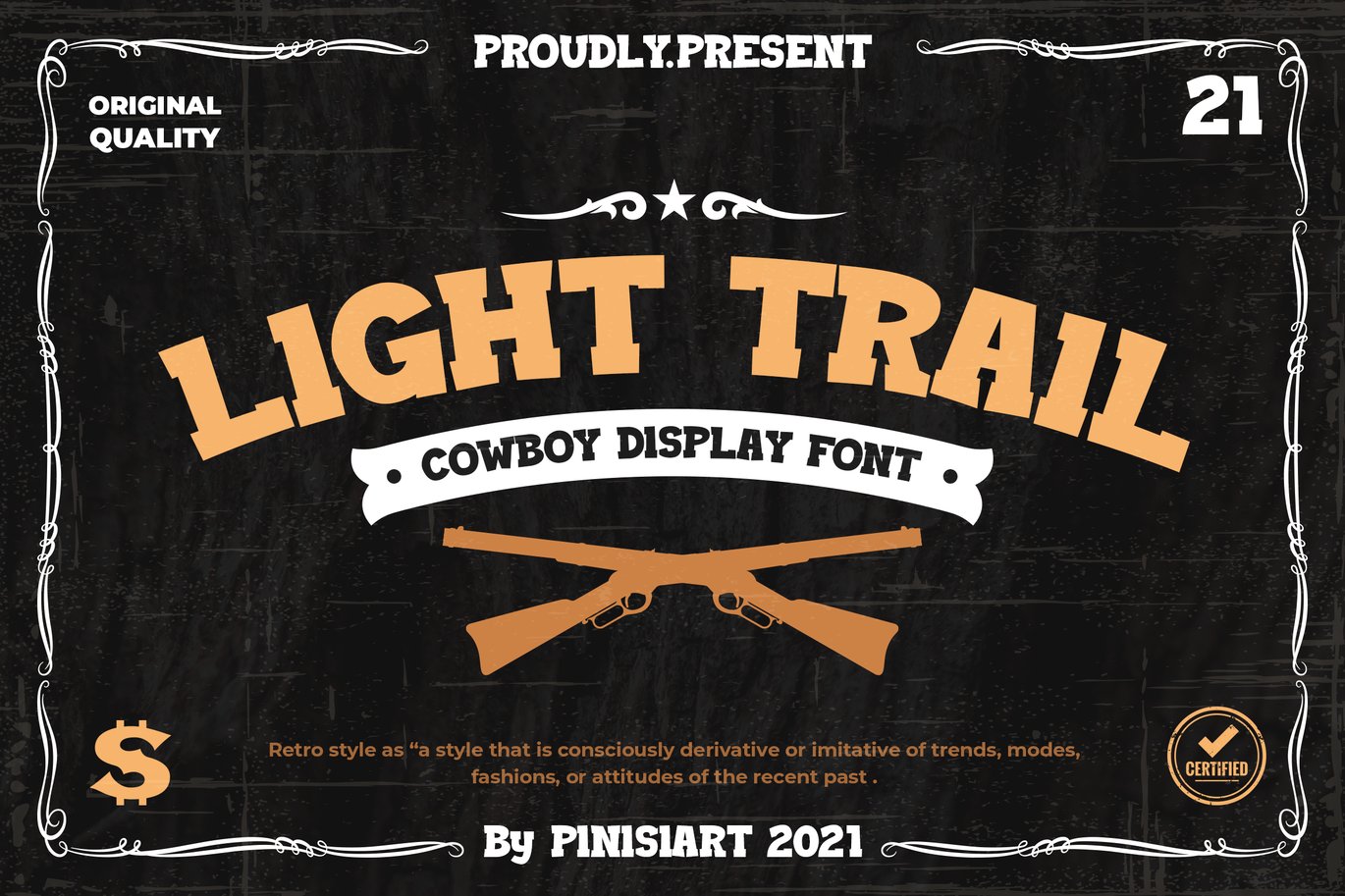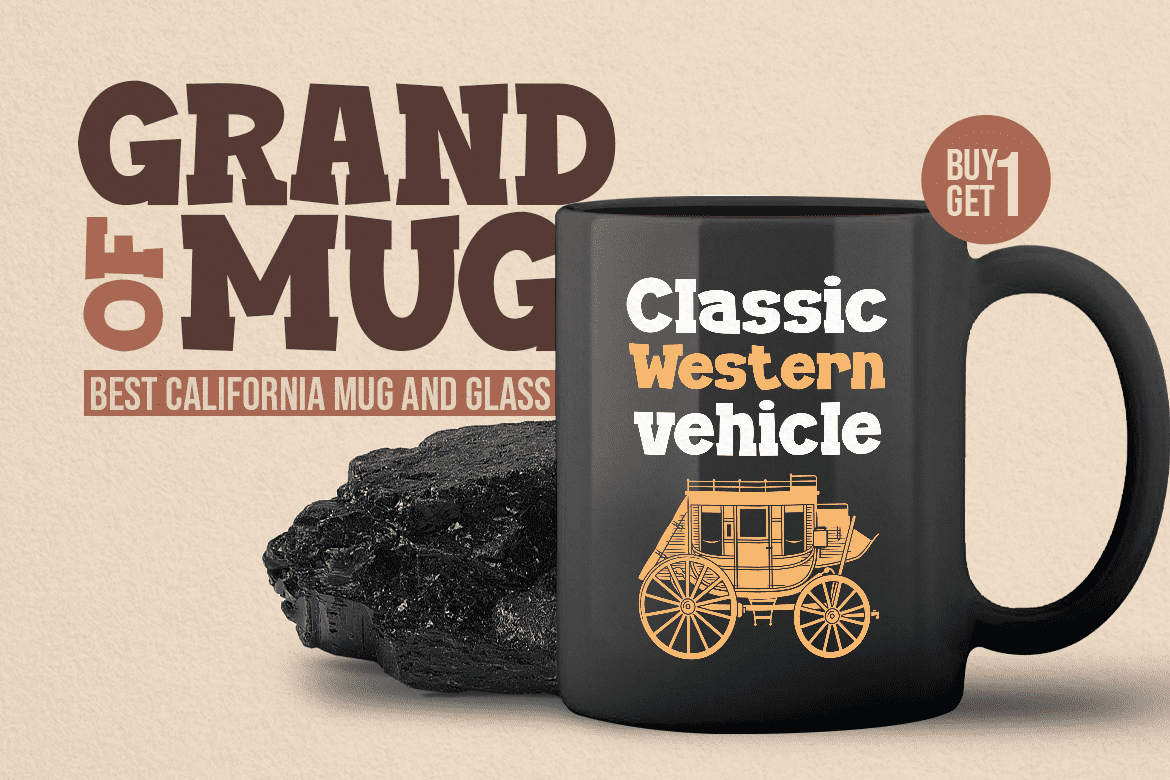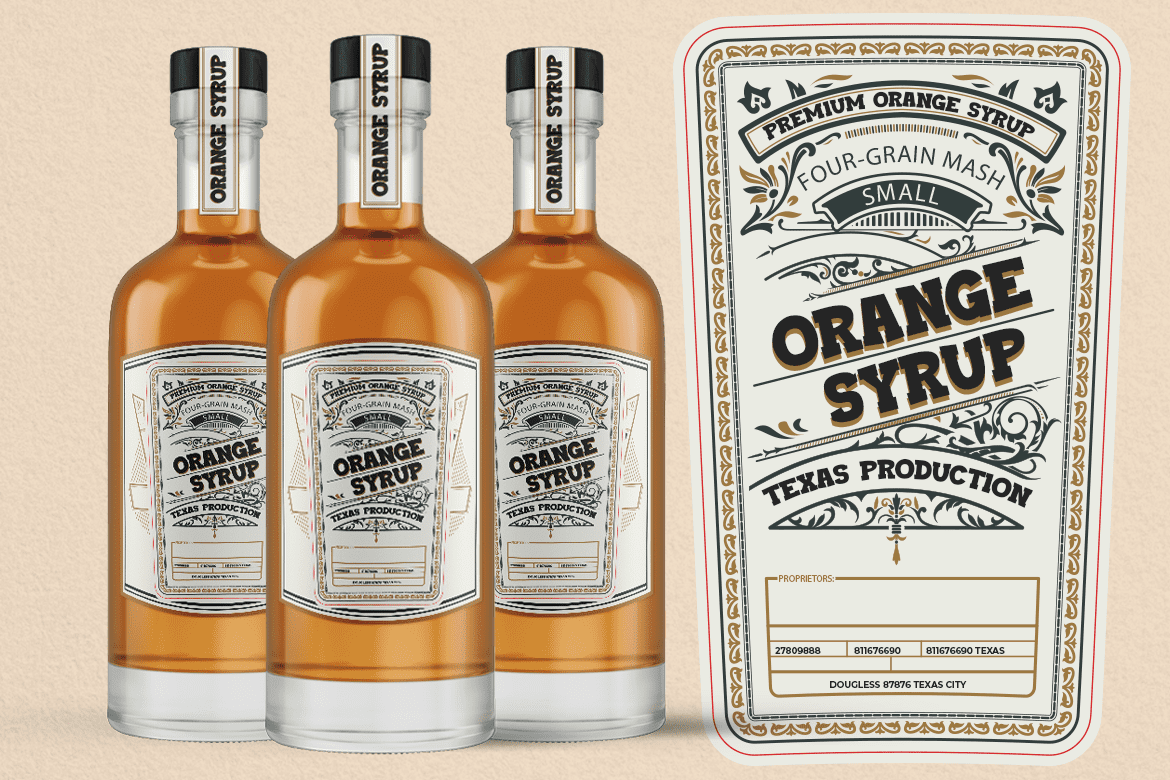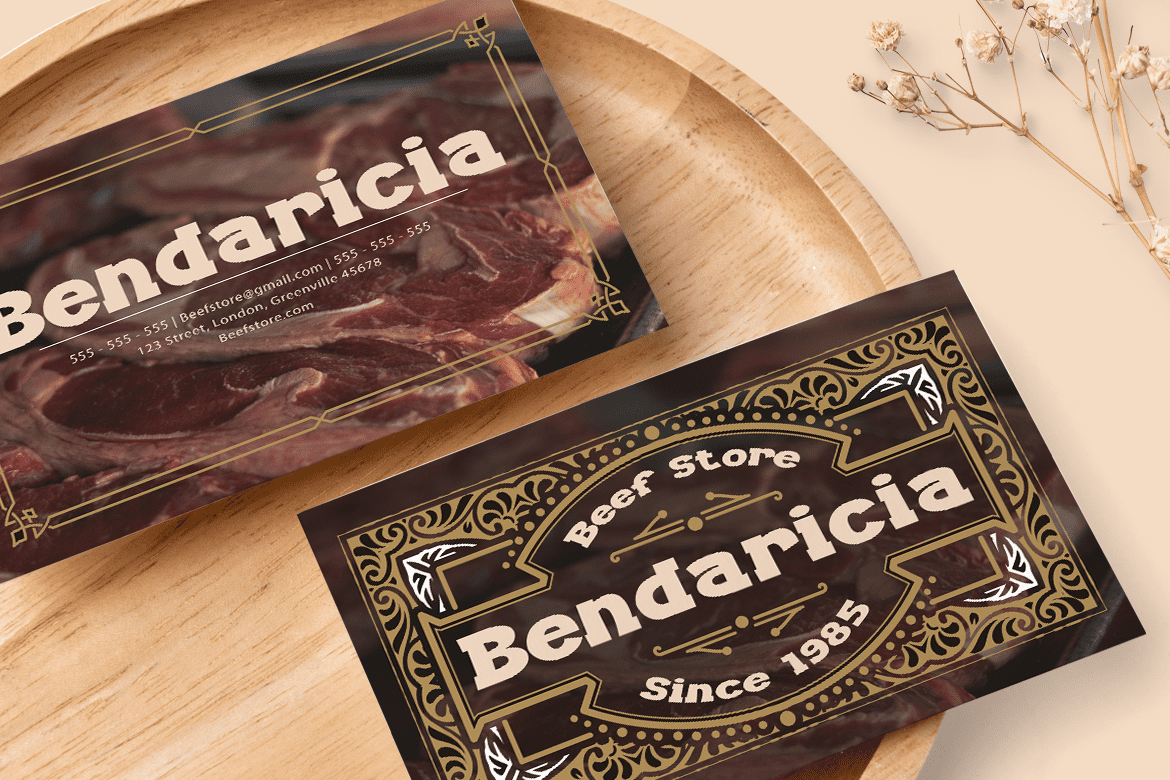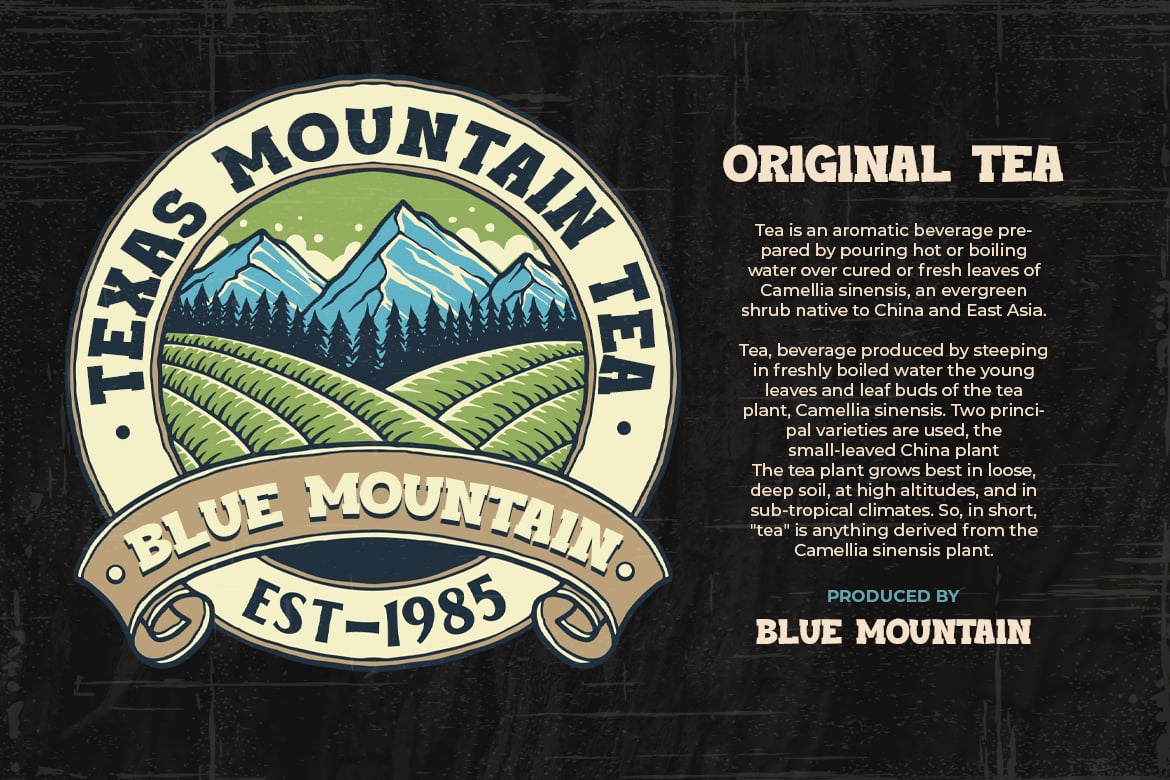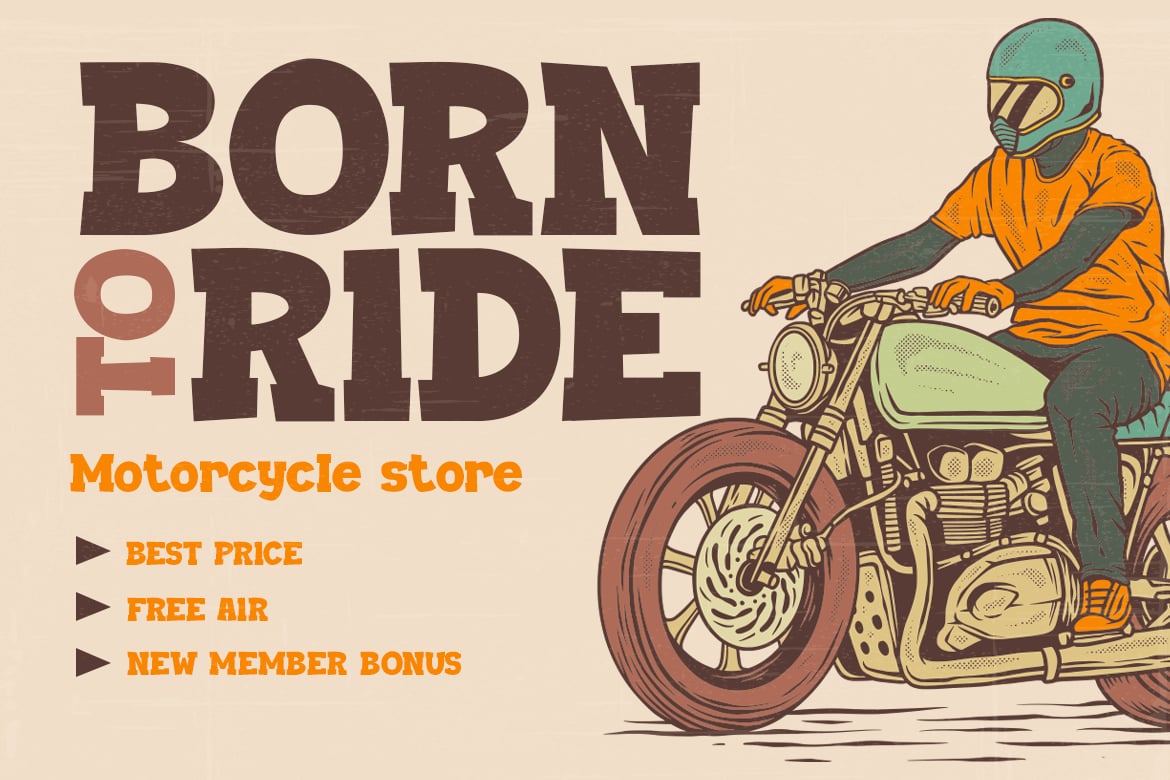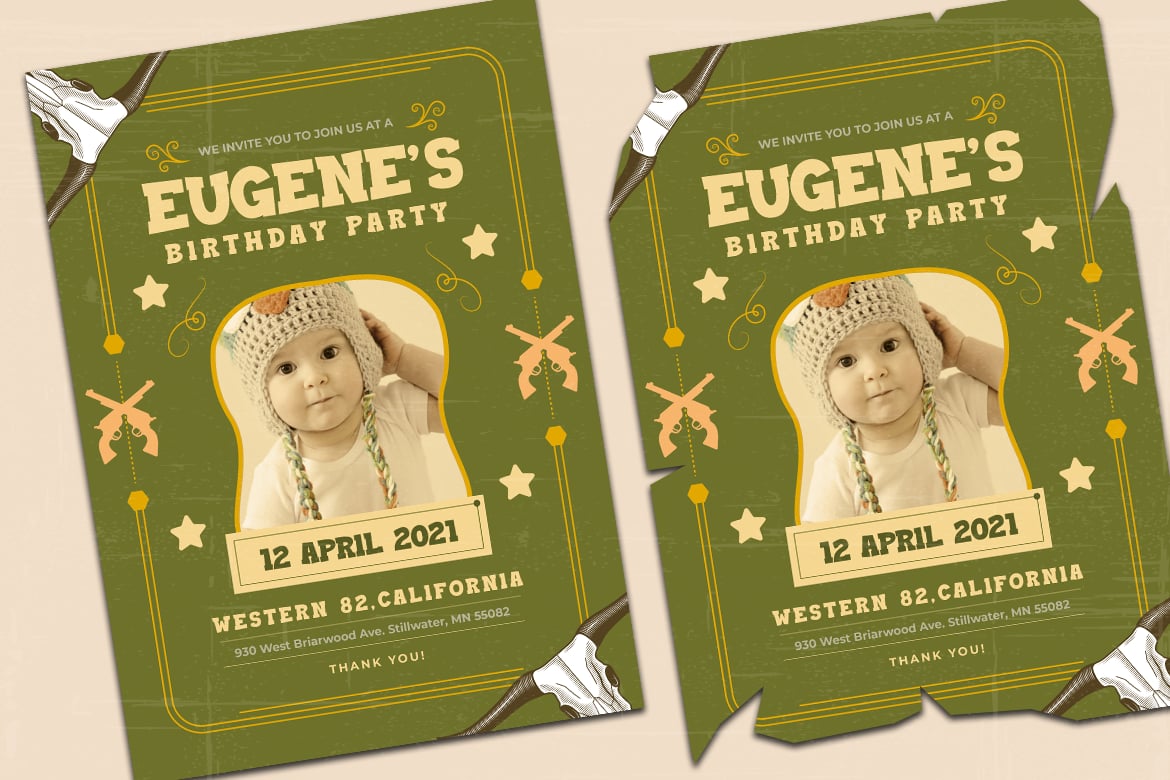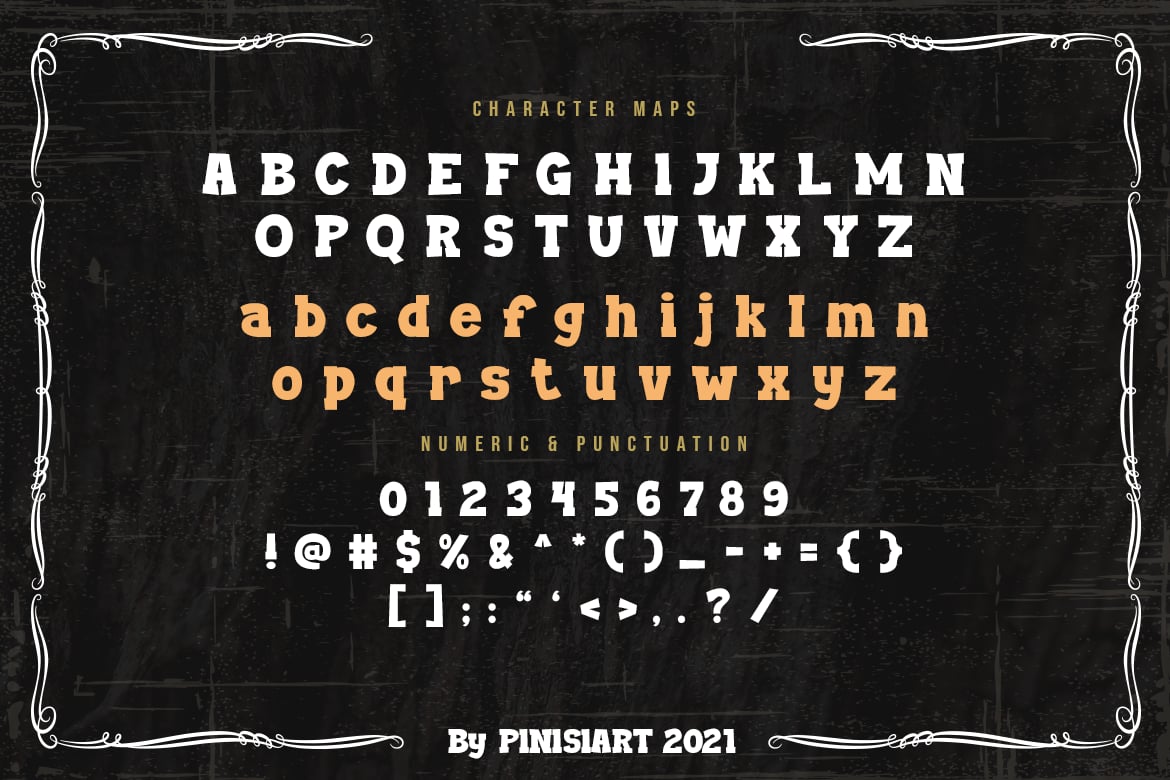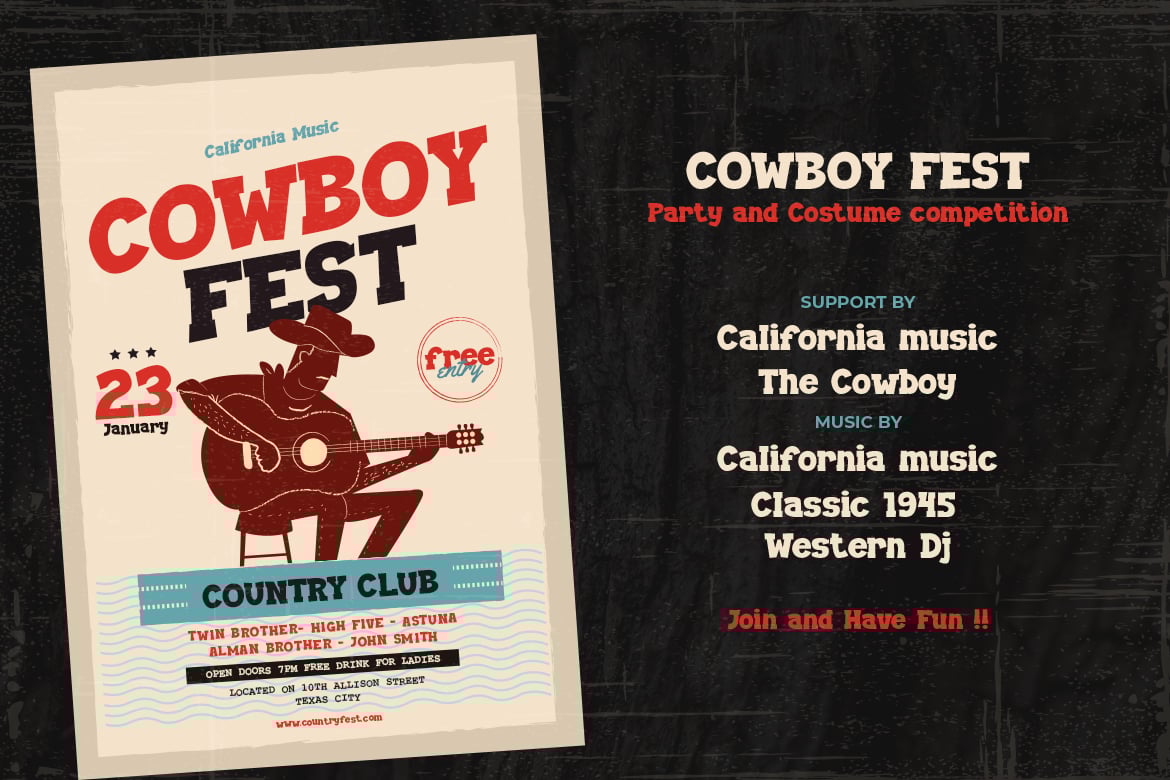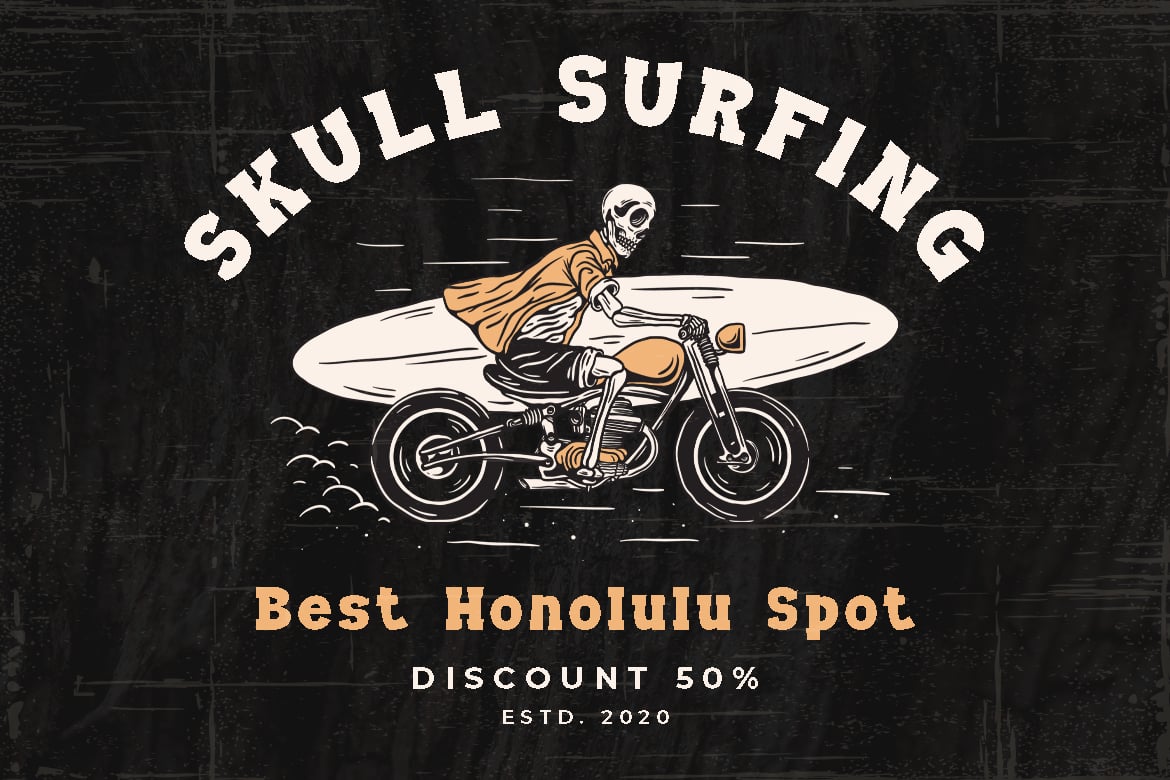
Light Trail – Western Font
A friendly bold serif font that bring the soft side of a cowboy.
Suit perfectly for western themes books market, online games, stationary, badge style logo font, poster, birthday invitation, youtube covers, youtube thumbnails, social media page covers and so on…